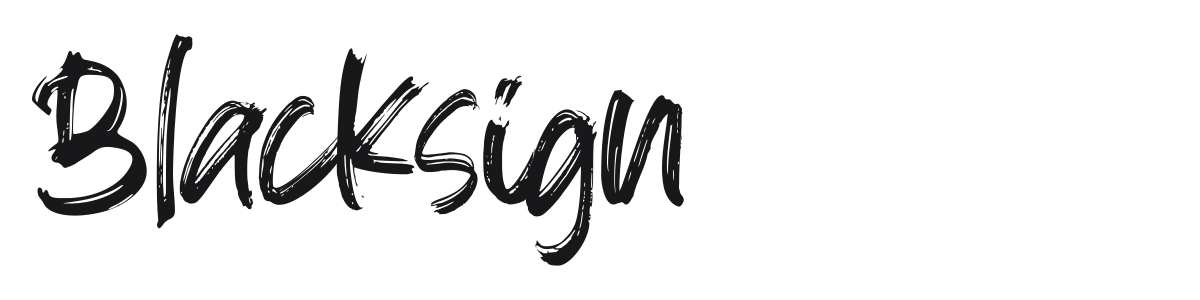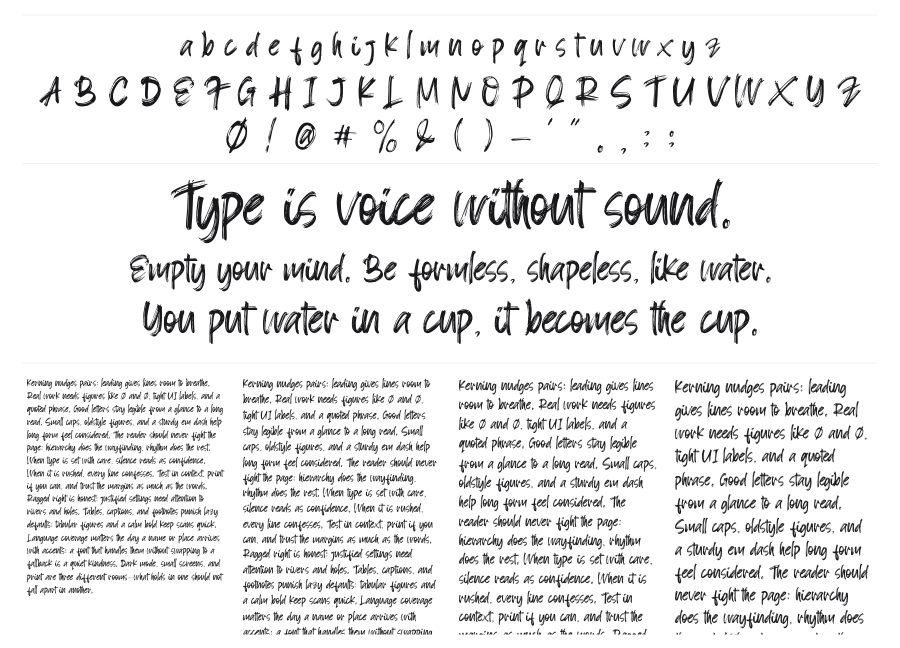
Blacksign
Blacksign is a bold brush script built on raw, inky strokes with heavy downstrokes and wispy hairline connections. The dry-brush texture along each stroke edge gives it a lived-in, hand-lettered energy that feels spontaneous without losing legibility. It brings weight and attitude to logos, packaging, and editorial headlines.